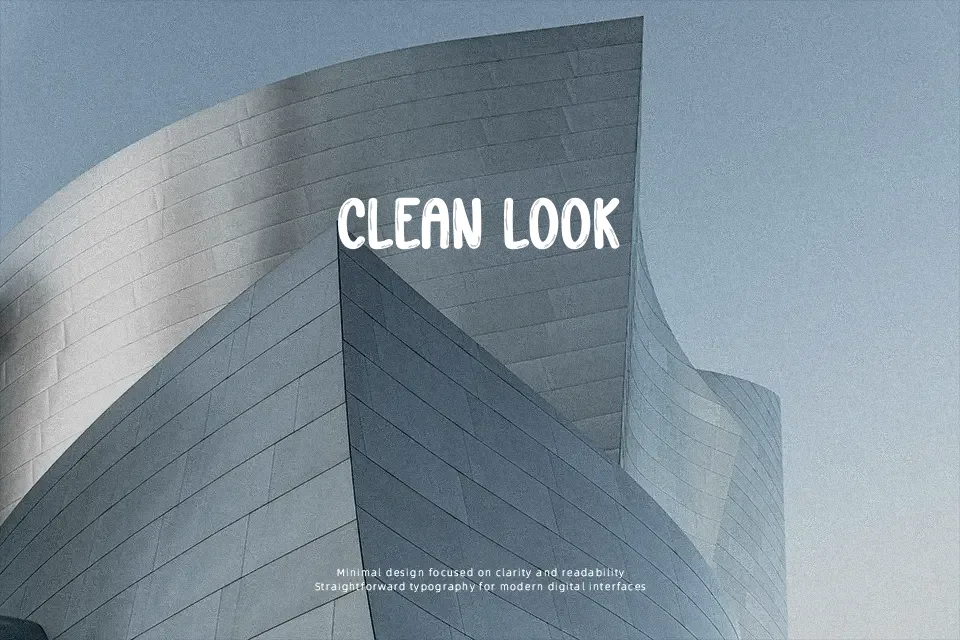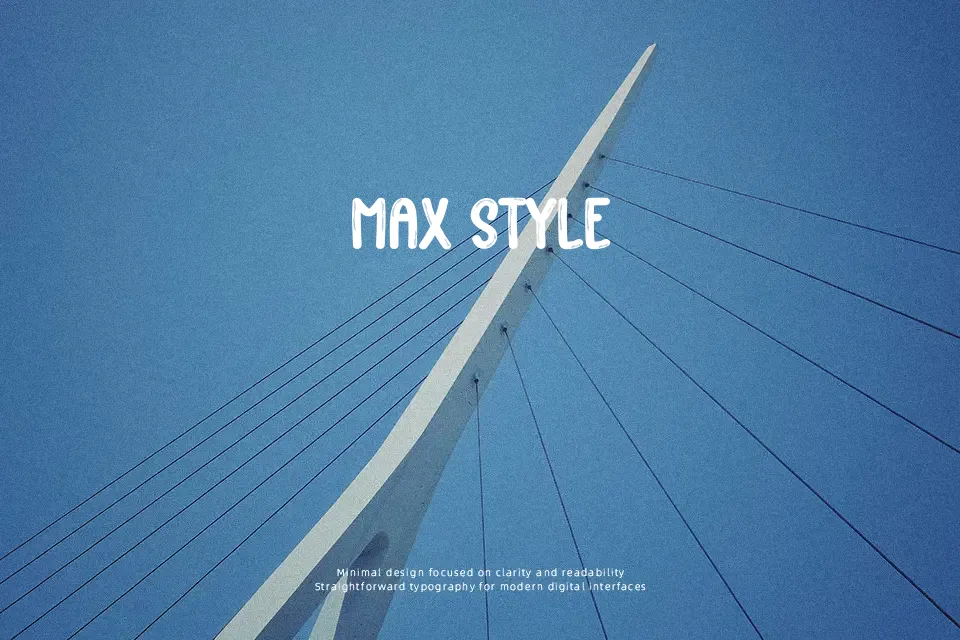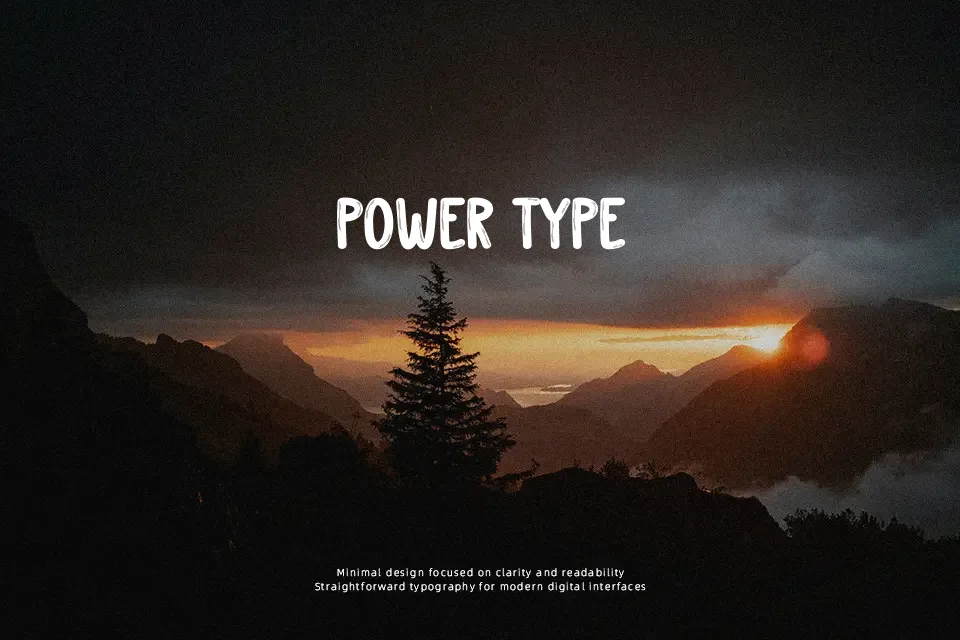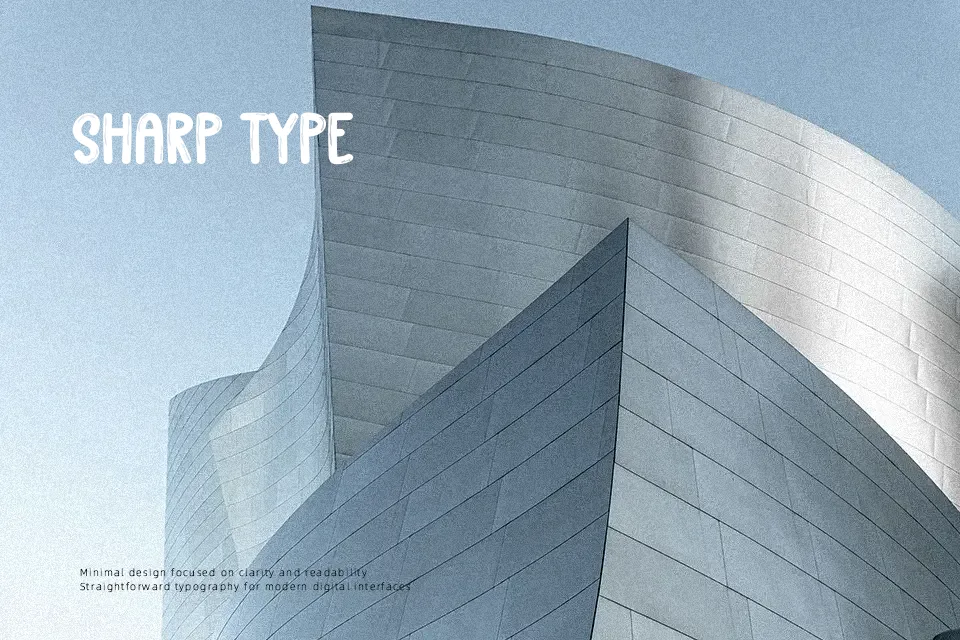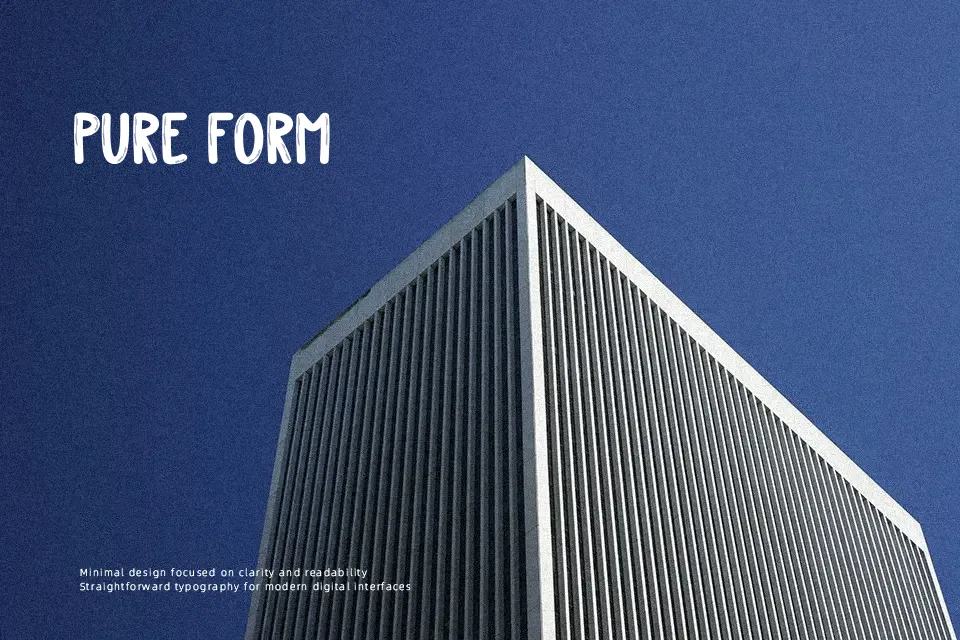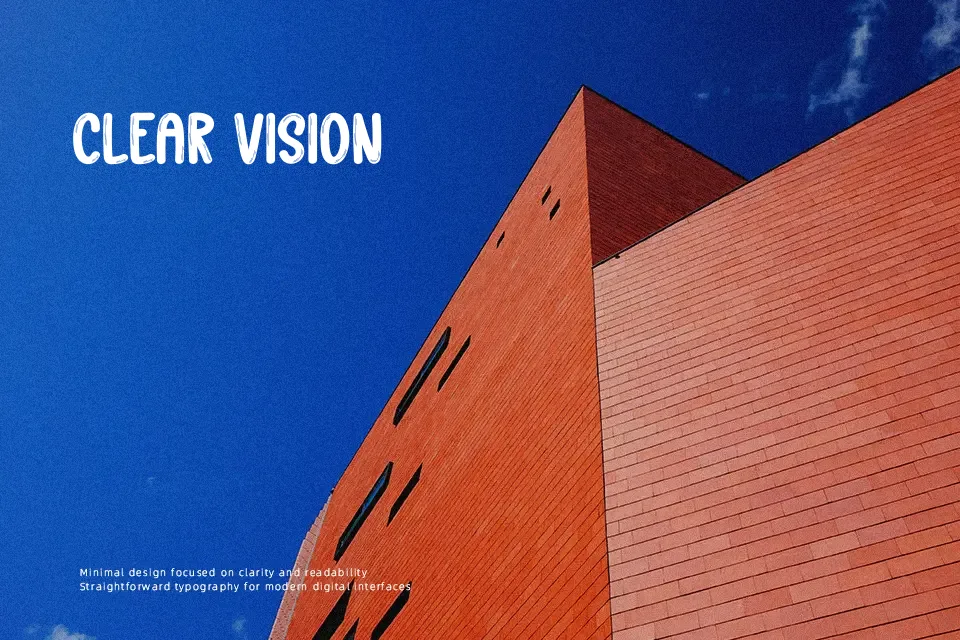
Sugar Christmas Font
Sugar Christmas Font uses chunky, rounded letterforms with uneven contours and a cartoon-like display rhythm. Its broad shapes and soft terminals give short words a friendly, handmade appearance, while the generous visual weight keeps headlines noticeable at larger sizes. The character spacing appears most effective when text is kept brief, allowing each playful form room to read clearly. It works well for festive titles, packaging accents, and child-oriented graphics. The decorative construction becomes less comfortable in small sizes or extended copy, where the irregular outlines can slow reading.
Best For: holiday posters,Christmas gift tags,kids party invitations,seasonal packaging
Perfect for christmas, headline, and kids, with a creative and cartoon style.